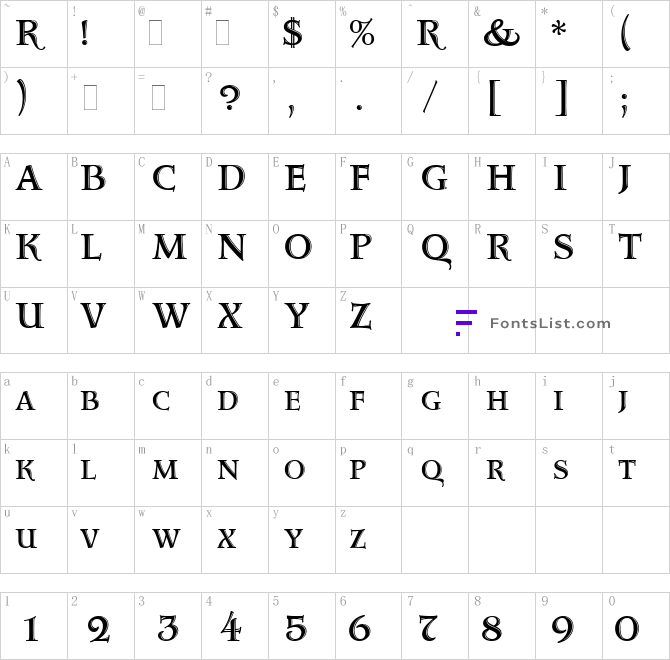
- Font Name:Aquitaine
Aquitaine-CapsMedium.ttf is a very beautiful artistic font, Aquitaine-CapsMedium.ttf is widely used in the design and printing of various books and pictures,Aquitaine-CapsMedium.ttf has a strong visual impact,Aquitaine-CapsMedium.ttf is a commonly used font in newspapers, magazines and books, and is used in posters, e-commerce Poster design, store design, logo design, font design and other fields.Aquitaine-CapsMedium.